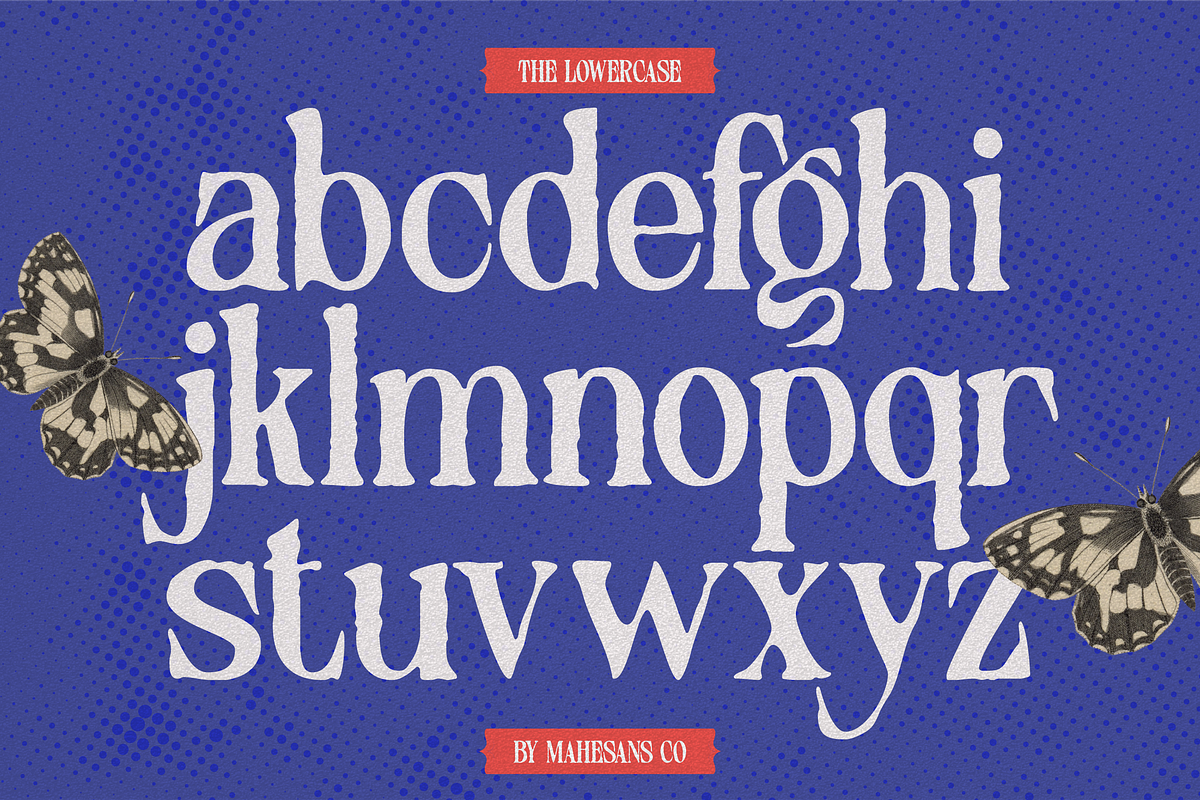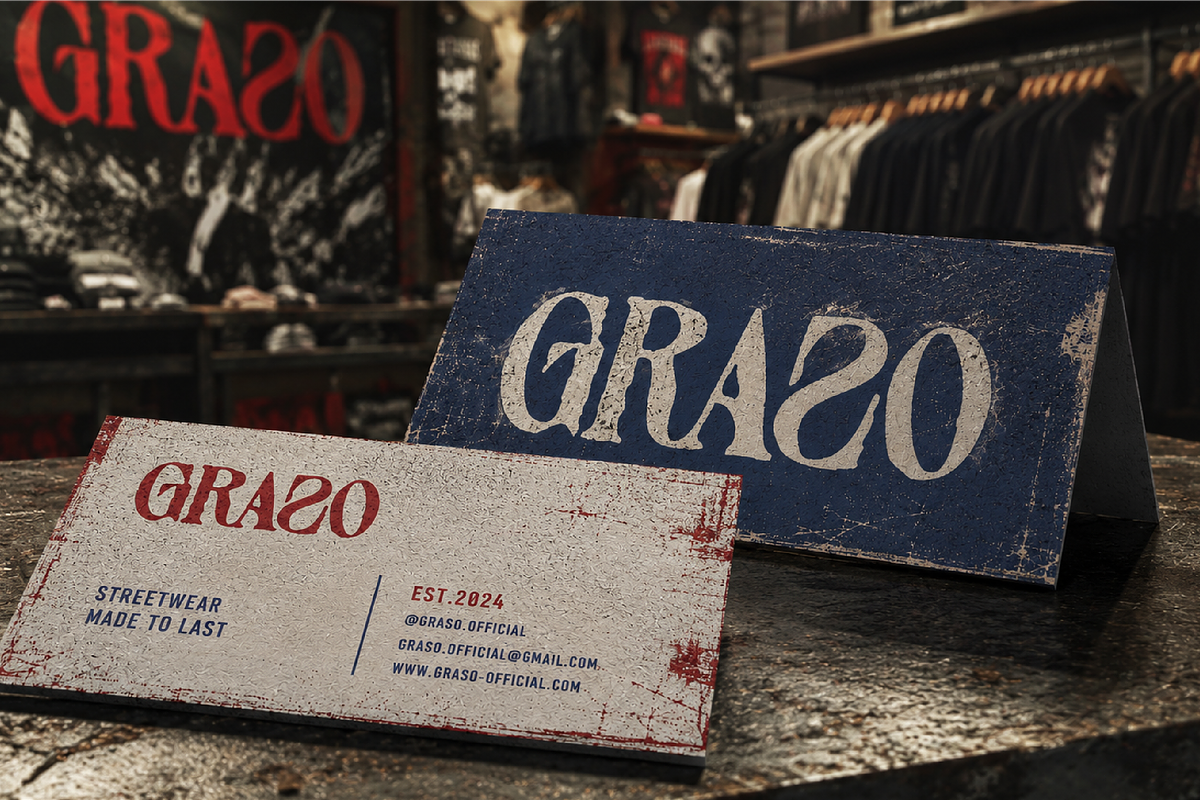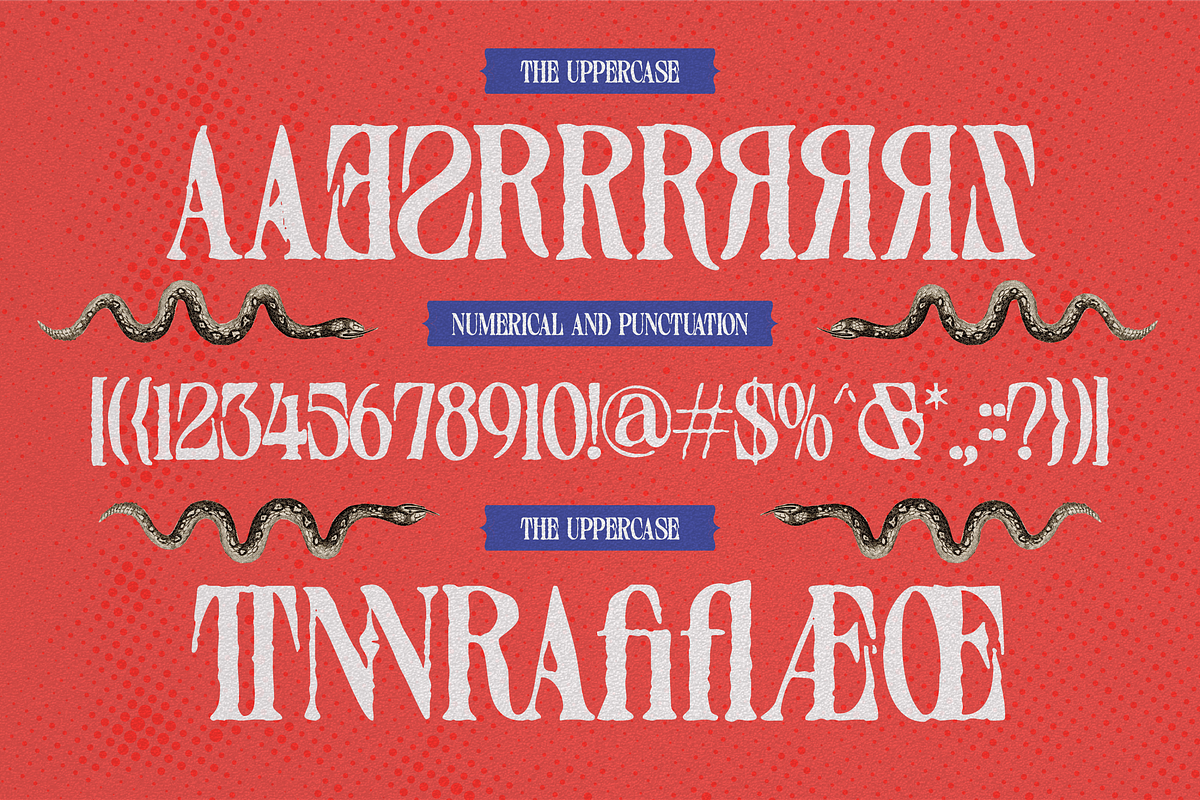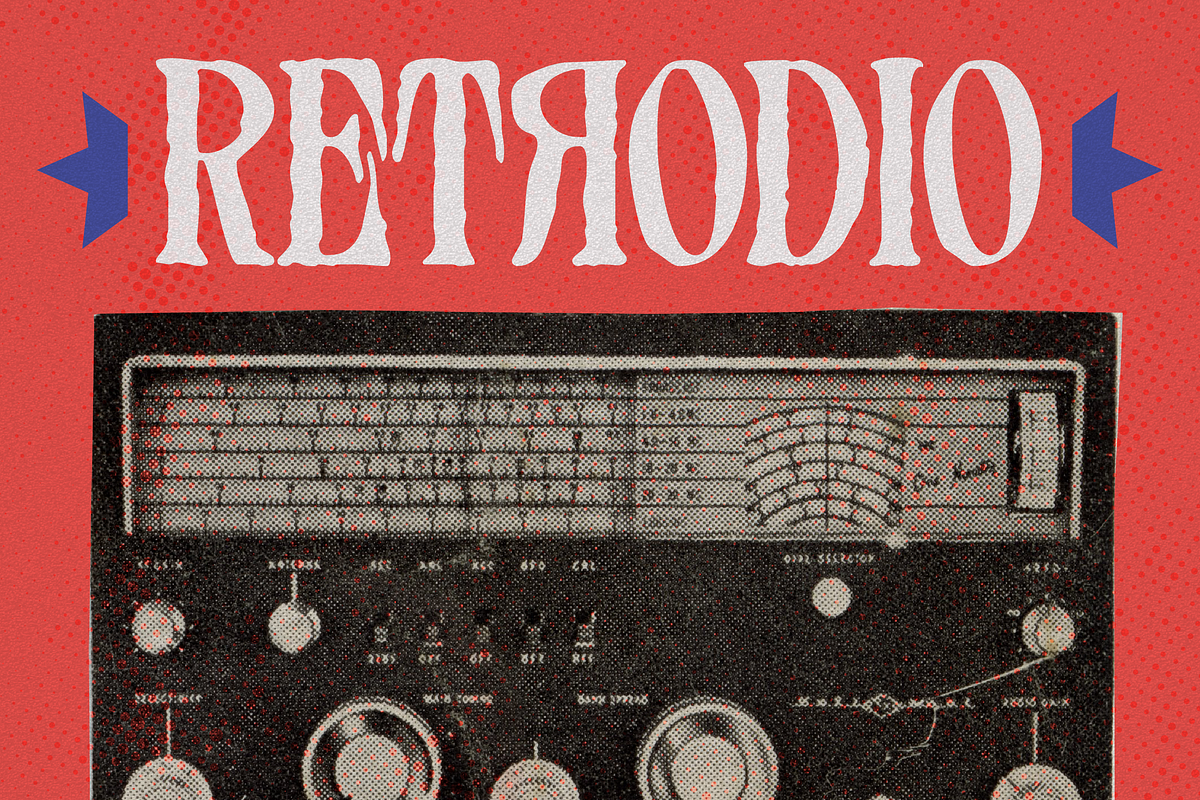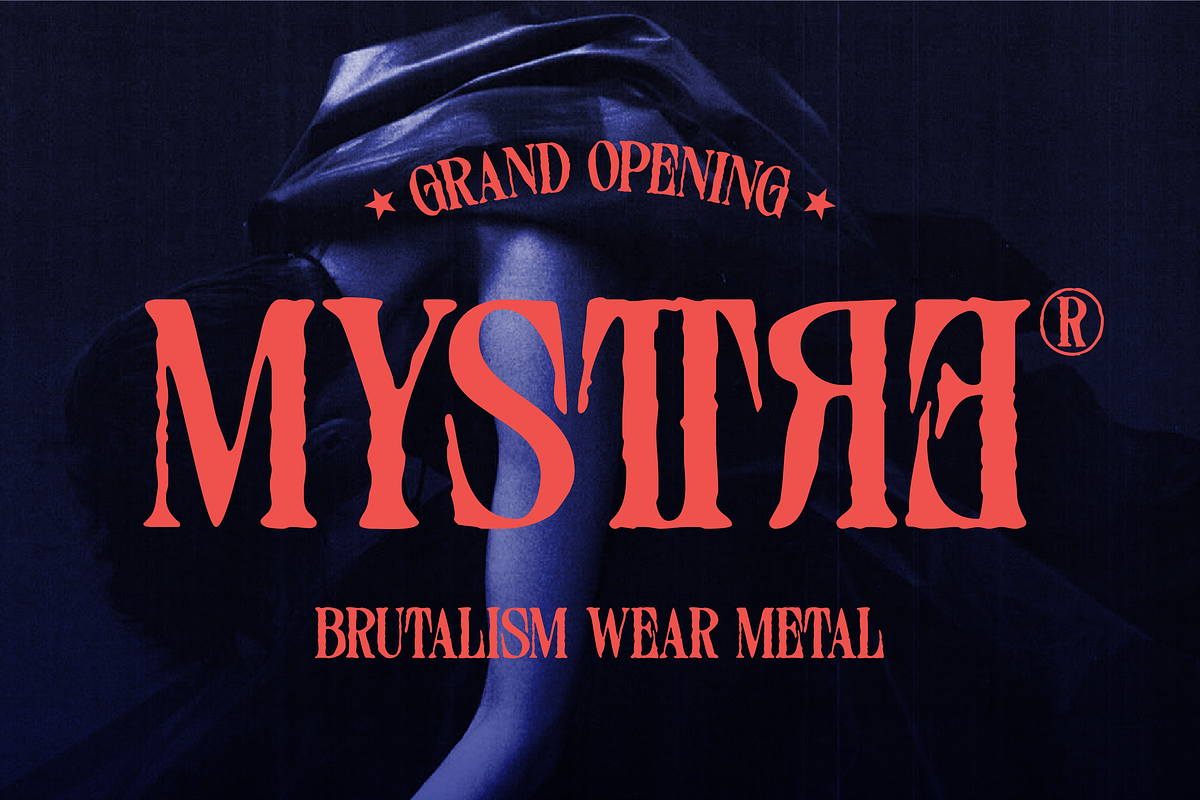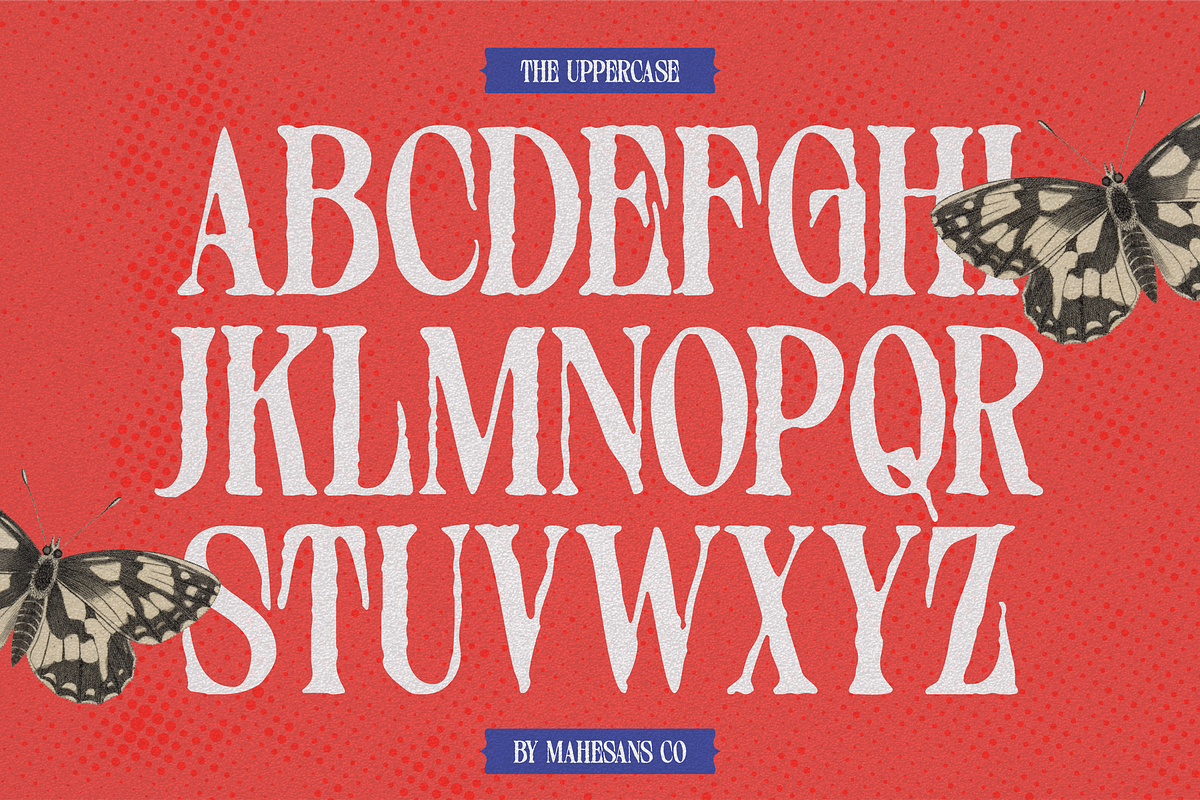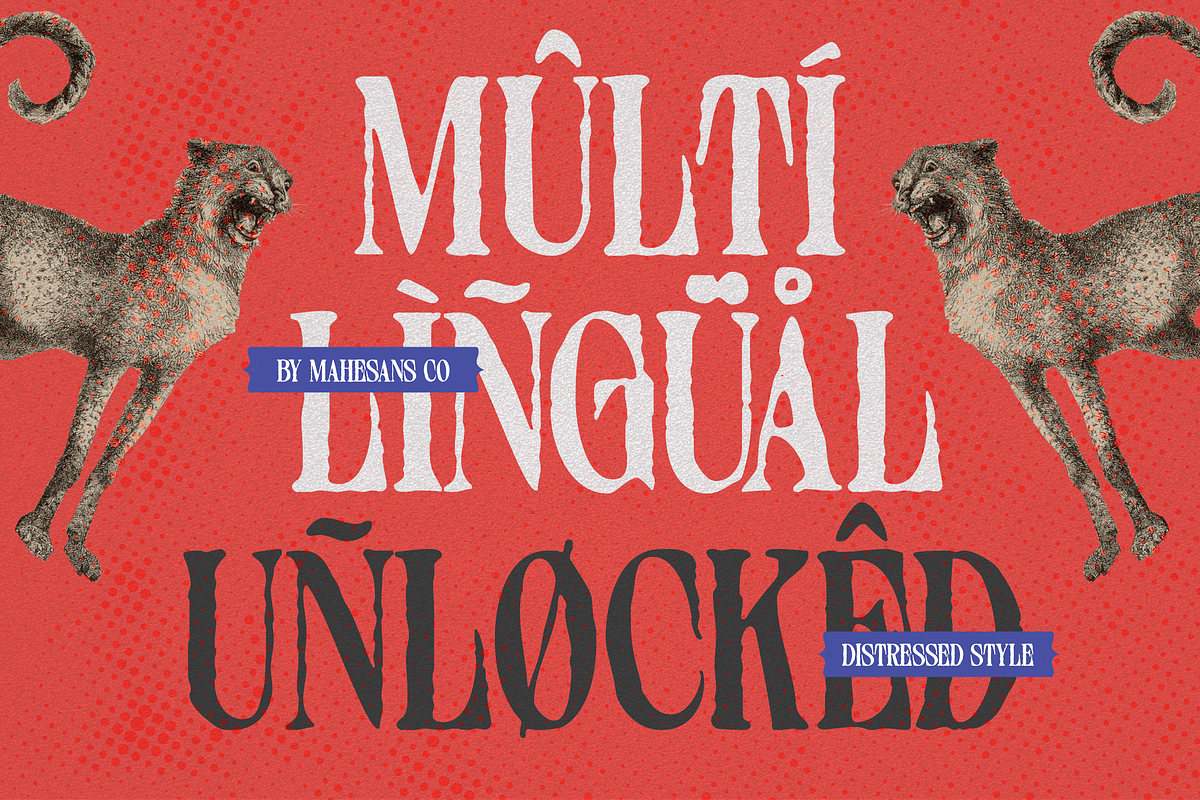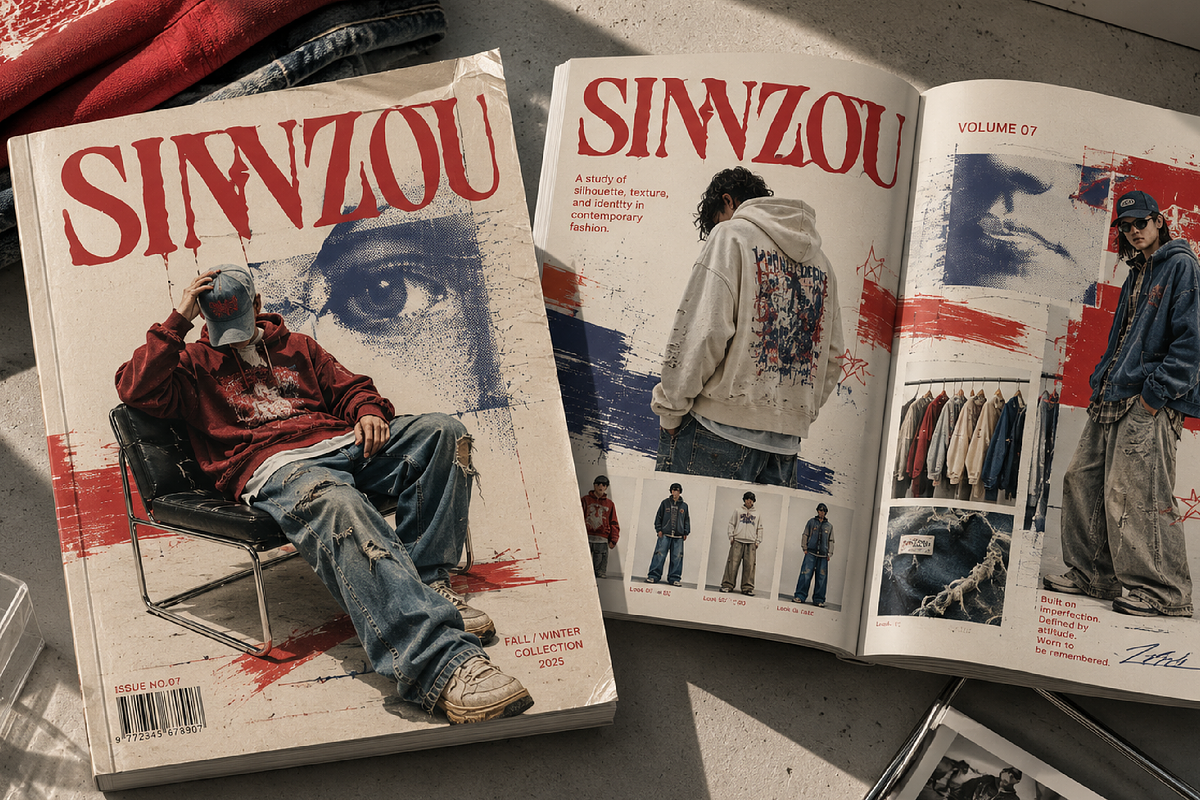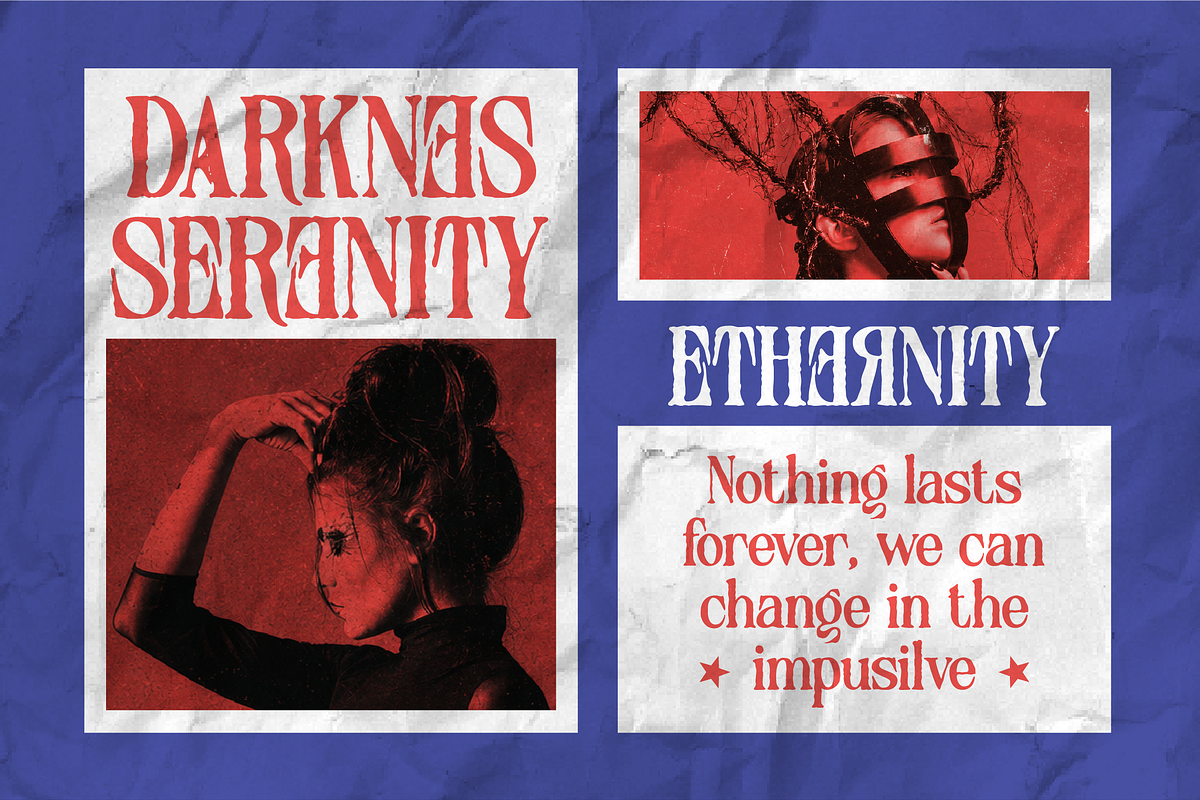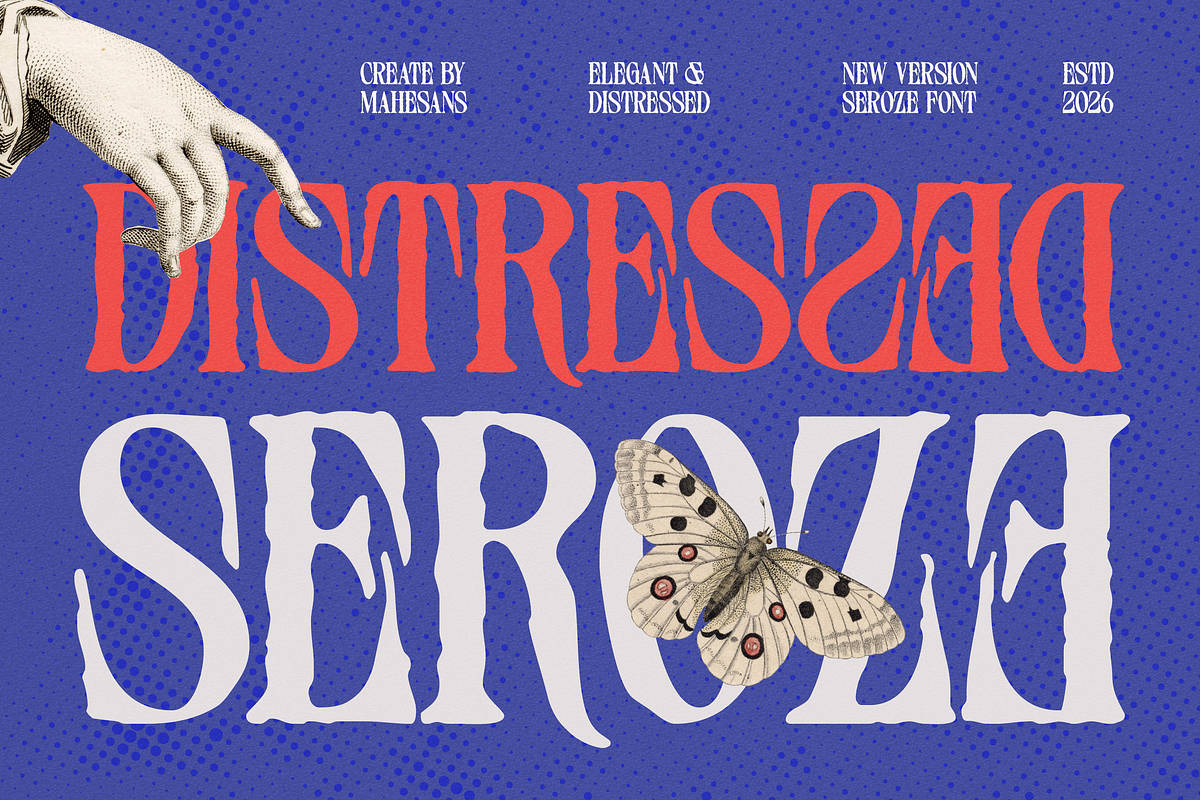
Distressed Seroze – Elegant Serif
Introducing Seroze, an elegant distressed serif font crafted to bring character, sophistication, and a touch of rebellion to your creative projects. Featuring organic distressed details, flowing curves, and distinctive letterforms, Seroze strikes the perfect balance between classic elegance and vintage grunge aesthetics.
Designed for designers who want their typography to feel expressive and memorable, Seroze shines in fashion editorials, luxury branding, magazine covers, packaging, posters, album artwork, and creative social media content. Its artistic imperfections create a handcrafted, authentic appearance while maintaining excellent readability and visual impact.
Whether you're creating a bold fashion campaign, a retro-inspired brand identity, or an eye-catching editorial layout, Seroze delivers a timeless yet unconventional style that instantly captures attention.
Fashion Branding
Luxury Logos
Editorial Design
Magazine Covers
Posters & Headlines
Album Covers
Creative Advertising
Multilanguage